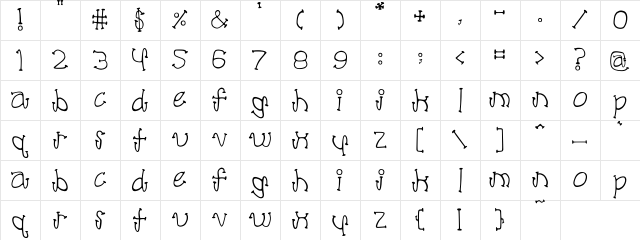
Complete poodle lover normal glyph index. Displaying only characters natively supported by poodle lover normal font.
poodle lover is a composed and adaptable typeface that performs quietly and consistently across a wide range of design contexts.